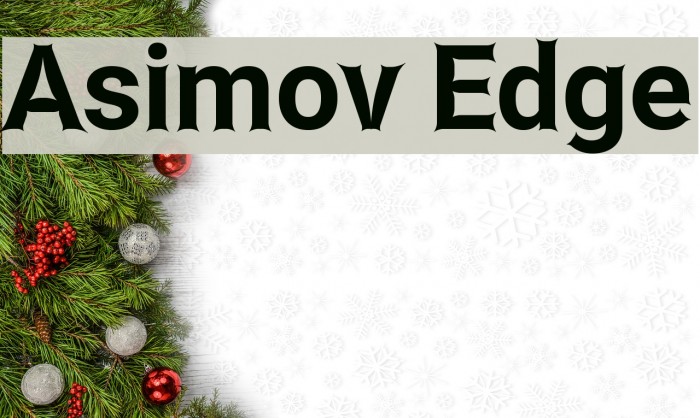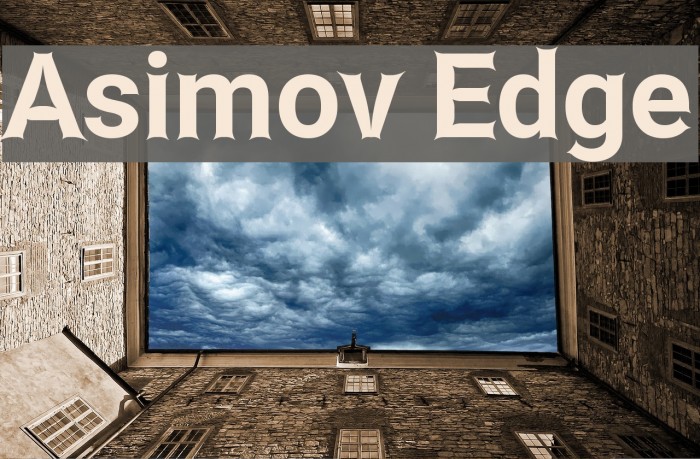
Asimov Edge Font
This font features a bold and assertive design with sharp, angular serifs that give it a distinctive edge. The uppercase letters are strong and commanding, while the lowercase letters maintain a consistent weight, providing a harmonious balance. The numerals are clear and legible, matching the overall boldness of the alphabet. Special characters are designed with the same attention to detail, ensuring they integrate seamlessly with the rest of the typeface. The font's style is both modern and slightly futuristic, making it suitable for a variety of creative applications.
A bold serif font with sharp, angular serifs and a modern, futuristic style.
- Proposed Projects: Ideal for headlines, branding, posters, and any project requiring a strong visual impact.